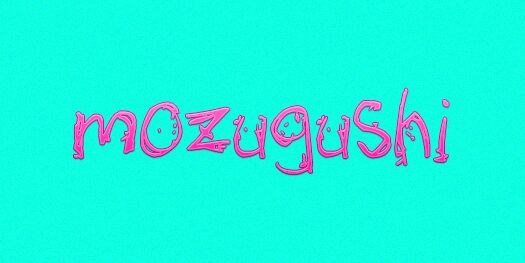
mozugushi
Mozugushi is a captivating script font that exudes a delightfully chaotic and unconventional charm. With its irregular, distressed letterforms and a raw, almost hand-scrawled aesthetic, this font effortlessly conveys a sense of spontaneity and individuality.
Its distinct personality makes it an excellent choice for projects seeking to evoke a gritty, punk-inspired ambiance, from album covers and concert posters to edgy branding applications.
Mozugushi's versatility allows it to seamlessly blend into a variety of design contexts, seamlessly complementing bold imagery and complementary typographic elements.